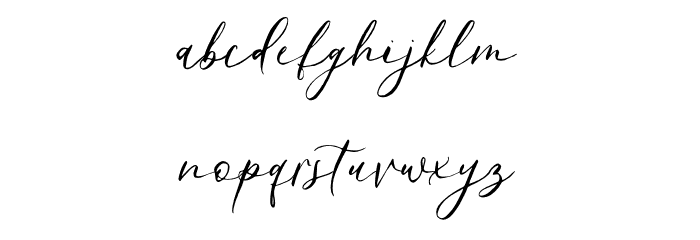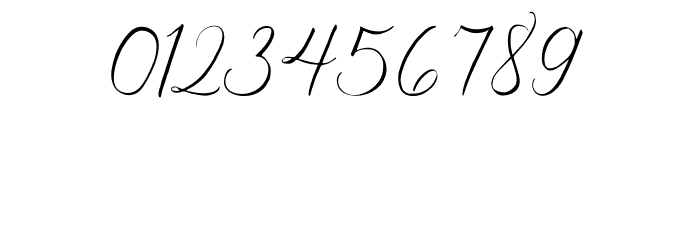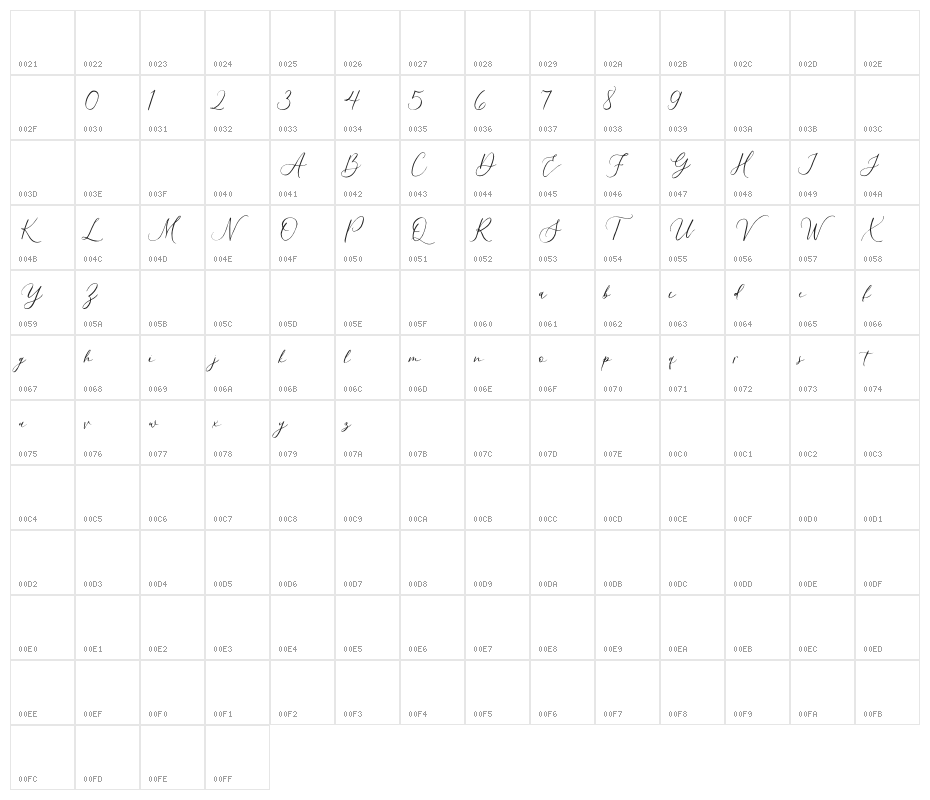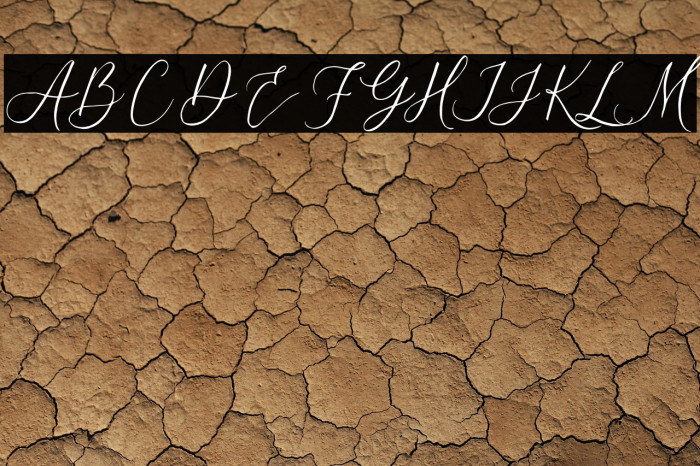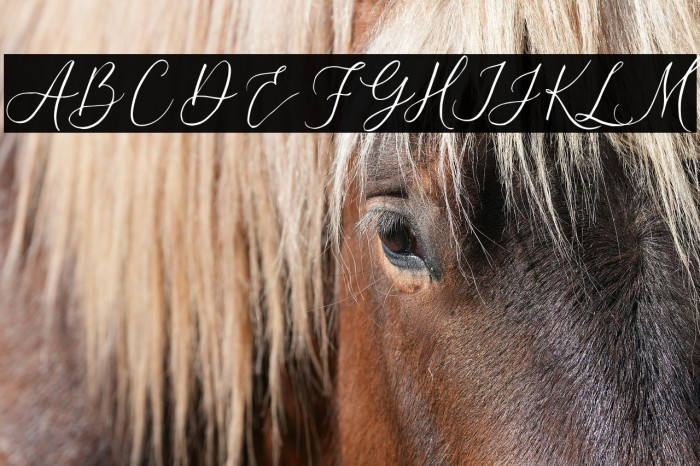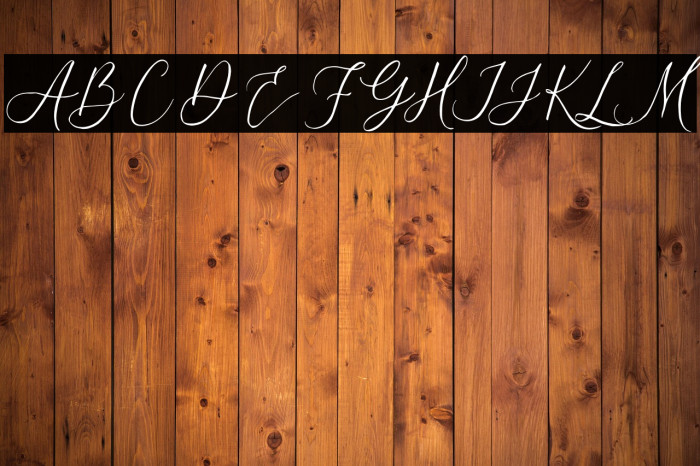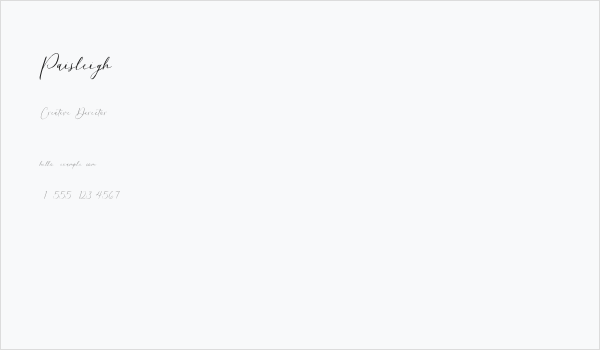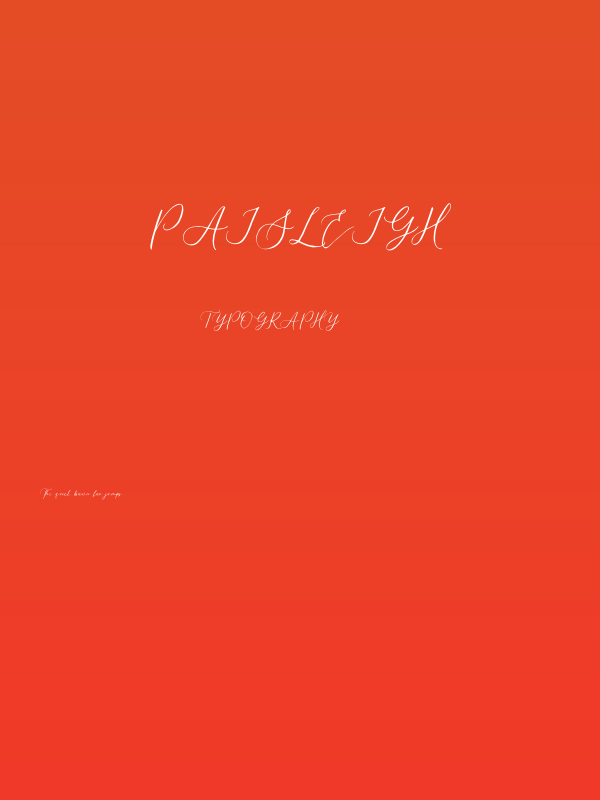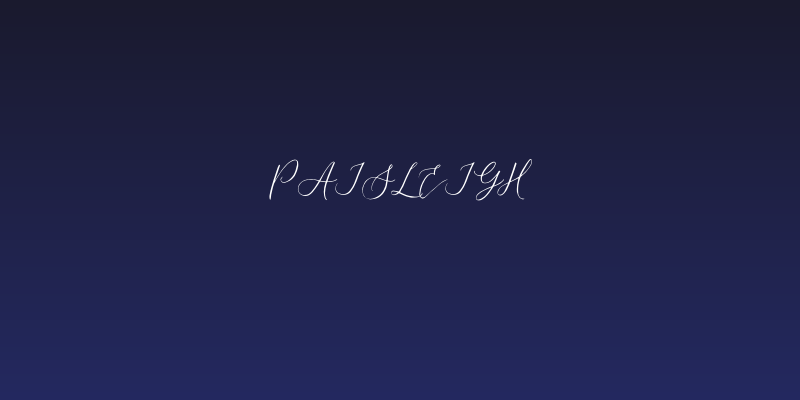
Paisleigh Font
This elegant script font features flowing, cursive letterforms with a sophisticated and graceful appearance. The uppercase letters are characterized by sweeping, decorative flourishes that add a touch of luxury and refinement. The lowercase letters maintain a consistent slant, enhancing the fluidity and continuity of the text. The numerals are designed with a similar elegance, featuring subtle curves and a harmonious balance. This font exudes a sense of romance and charm, making it ideal for formal invitations, branding, and any design that requires a touch of class.
An elegant script font with flowing, cursive letterforms and decorative flourishes.
- Font: Paisleigh
- Proposed Projects: Ideal for wedding invitations, luxury branding, elegant stationery, and romantic designs.
- Category: Script
- Overall Style: Elegant
- Use Case: Invitations, Branding, Decorative Text